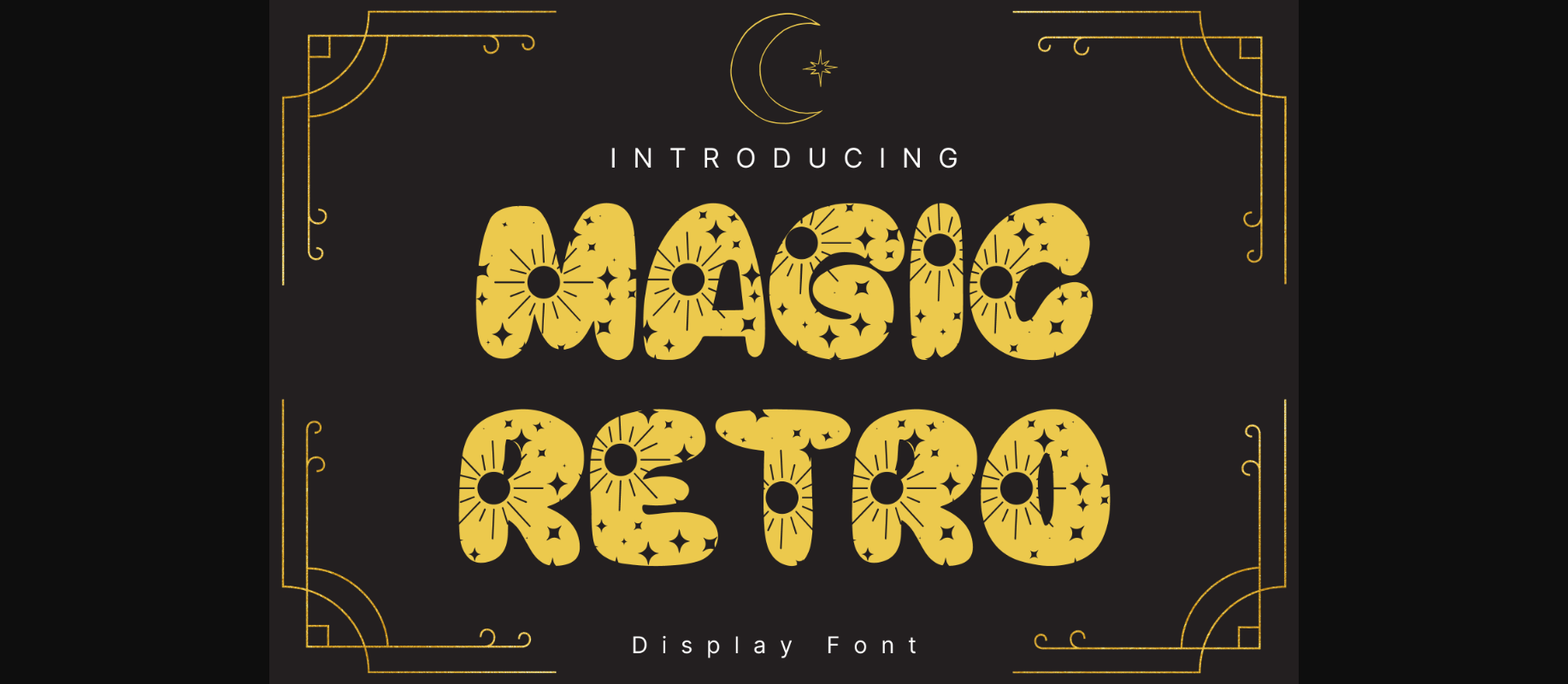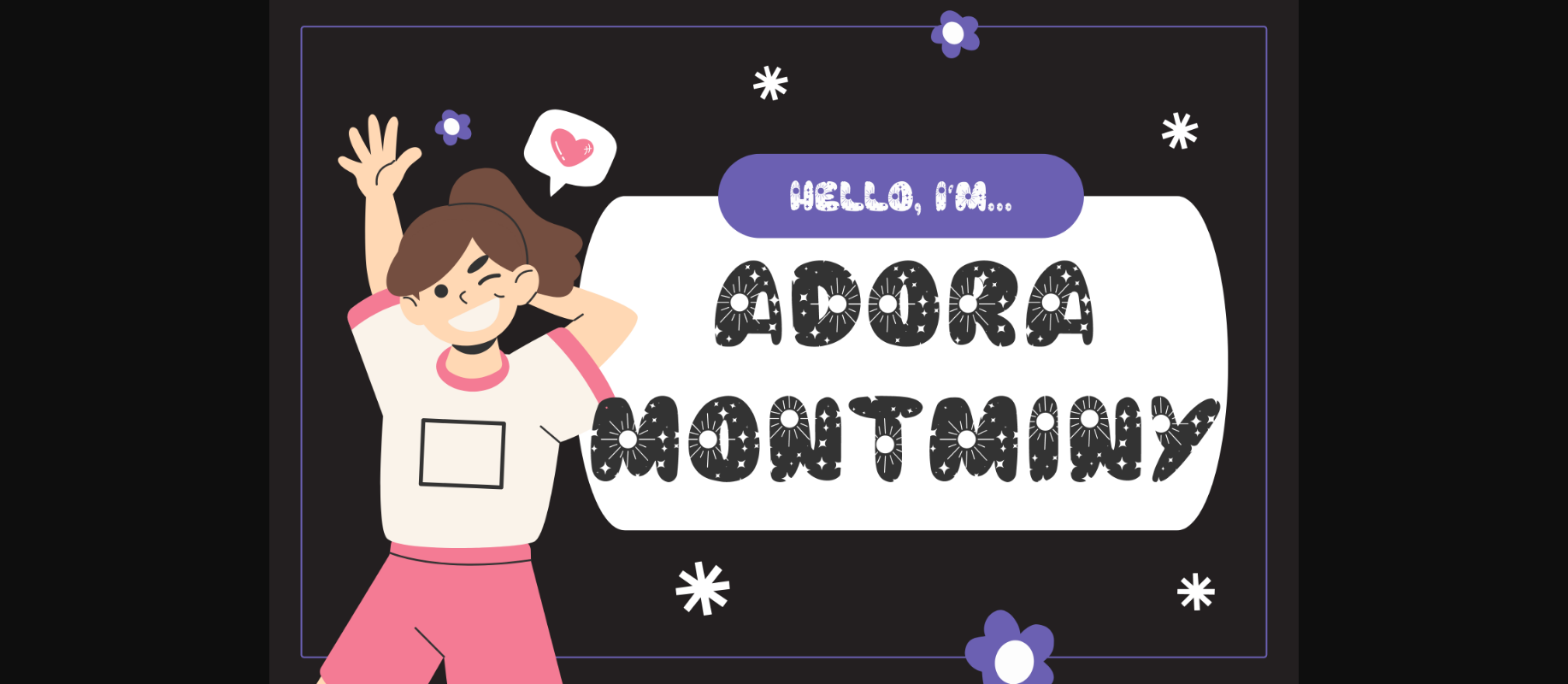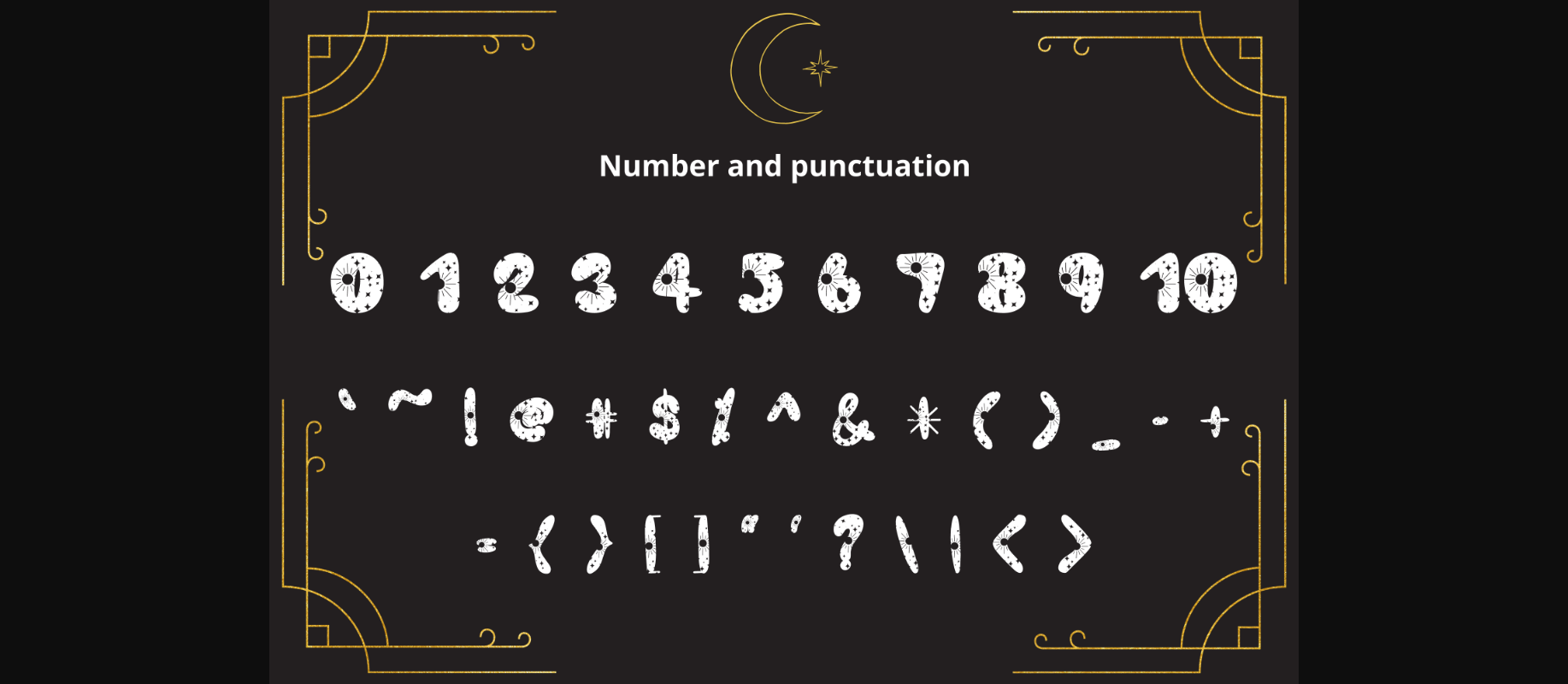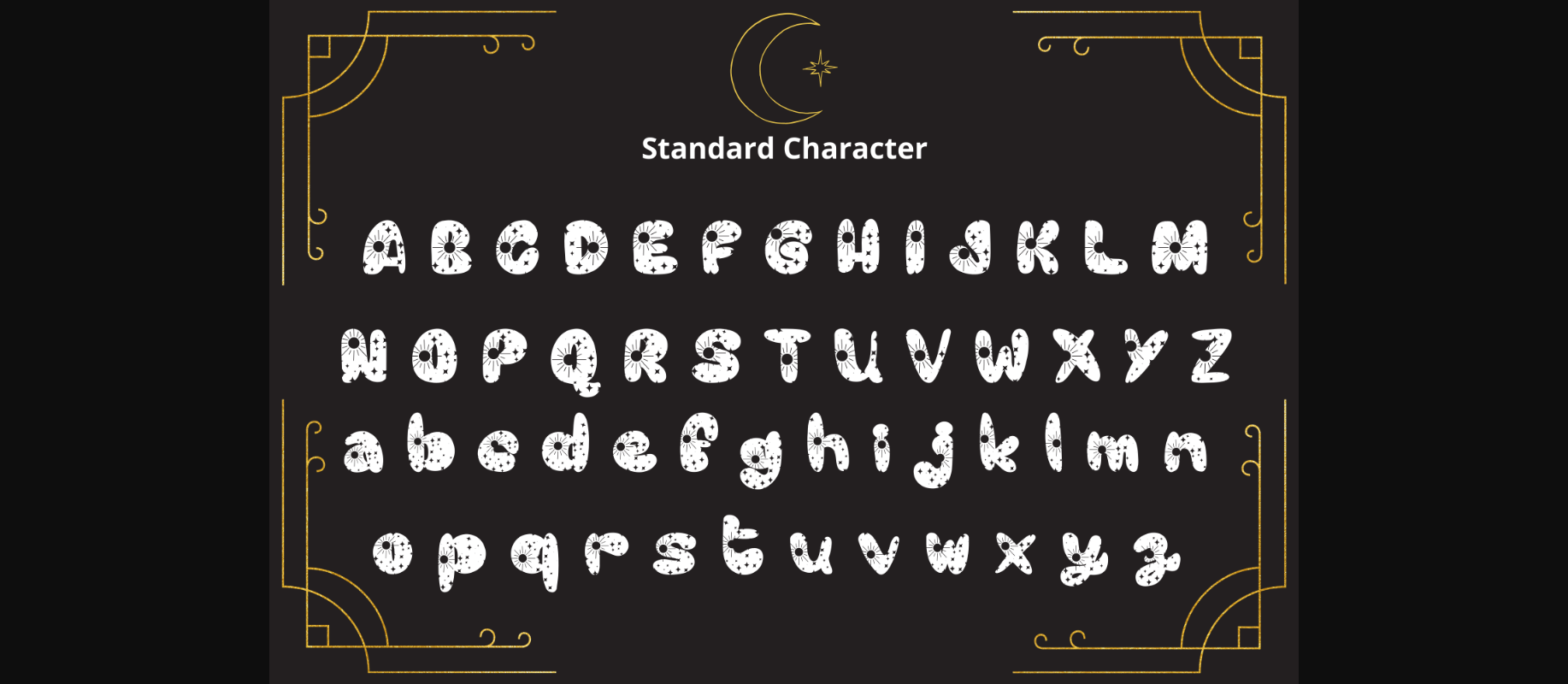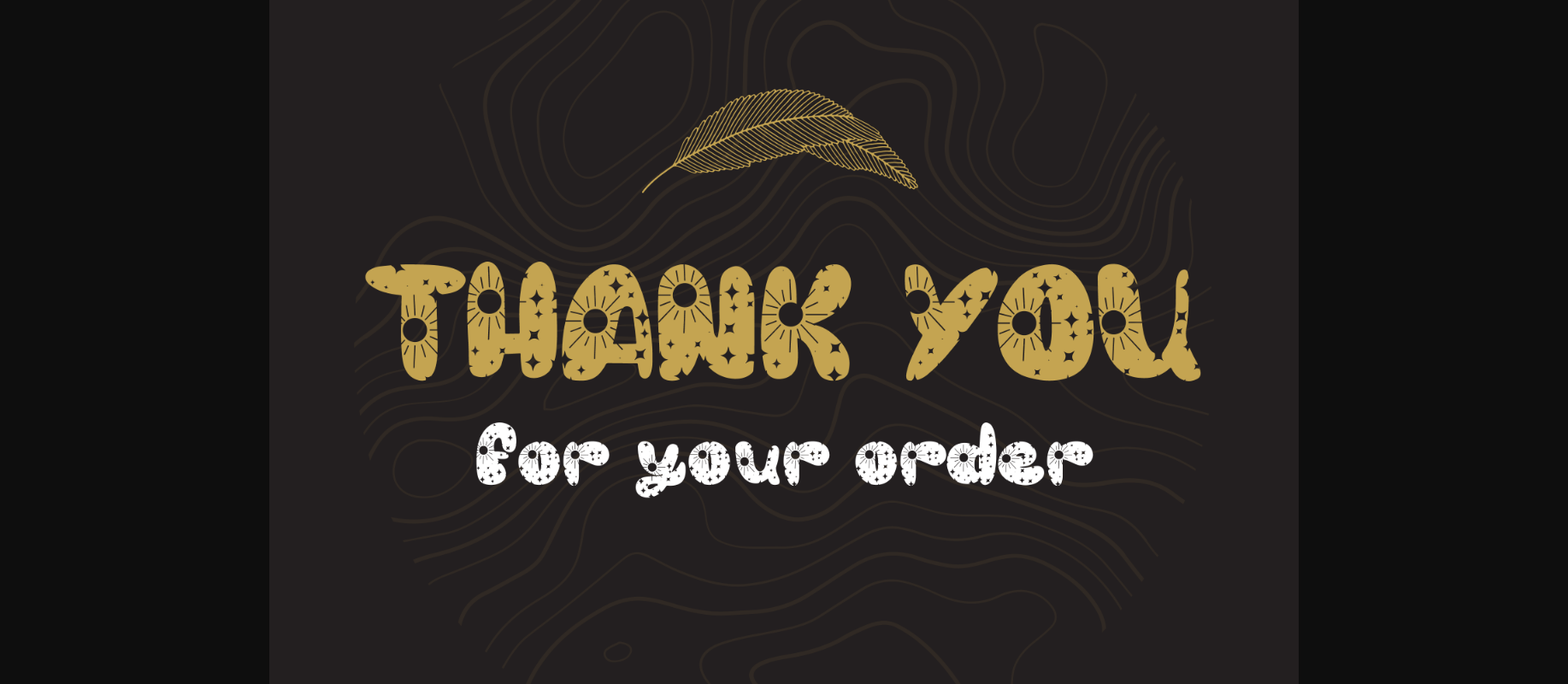
Magic Retro Font
About Magic Retro Font
Magic Retro is a whimsical and unique decorative font. It can easily be matched to an incredibly large set of projects, so add it to your creative ideas and notice how it makes them stand out!